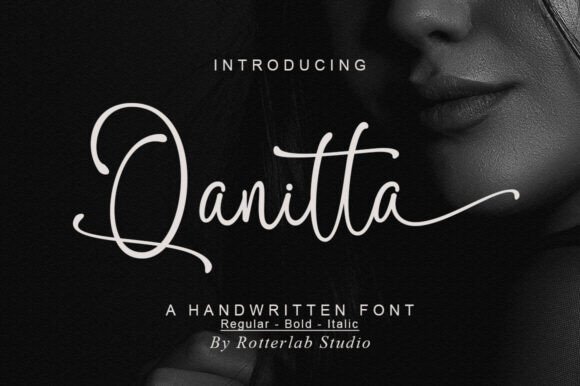
Qanitta Font: Elevate Your Designs with Elegance and Sophistication
When it comes to creating visually stunning designs, the right font can make all the difference. Introducing Qanitta, an elegant script font that embodies the perfect blend of classic sophistication and modern flair. Inspired by timeless calligraphy, Qanitta is designed to bring a touch of refinement and poise to your projects, making it an ideal choice for designers seeking to elevate their work.
What Makes Qanitta Stand Out?
Qanitta boasts a range of features that set it apart from other script fonts. Here are a few key characteristics that make Qanitta a standout:
• Elegant and Contemporary: Qanitta strikes the perfect balance between classic elegance and modern sophistication, making it suitable for a wide range of design applications.
• Balanced and Varied: The font’s carefully crafted strokes are neither too thin nor too thick, ensuring a harmonious and visually appealing appearance.
• Impeccable Form: Qanitta’s design is rooted in traditional calligraphy, yet it has been refined to meet the demands of modern design.
Perfect for a Variety of Design Projects
Qanitta’s versatility makes it an excellent choice for various design applications, including:
• Logo Design: Create stunning logos that exude elegance and sophistication.
• Wedding and Event Design: Add a touch of luxury to your wedding invitations, menus, and other event materials.
• Branding and Packaging: Elevate your brand’s visual identity with Qanitta’s refined and classic aesthetic.
• Advertising and Marketing: Make a lasting impression with Qanitta’s beautiful and sophisticated lettering.
Typographic Details: What to Expect from Qanitta
Here are some key typographic details to keep in mind when working with Qanitta:
• Font Style: Qanitta is a script font with a flowing, connected style.
• Character Set: The font includes a comprehensive character set, covering a wide range of languages and special characters.
• Weights and Variations: Qanitta is available in various weights, allowing you to achieve the perfect level of contrast and emphasis in your designs.
Tips for Using Qanitta Effectively
To get the most out of Qanitta, consider the following tips:
• Pair with Contrasting Fonts: Combine Qanitta with a clean, sans-serif font to create visual interest and contrast.
• Experiment with Size and Color: Play with different font sizes and colors to add hierarchy and emphasis to your designs.
• Pay Attention to Kerning: Take the time to adjust kerning and tracking to ensure optimal readability and aesthetics.
Draw Inspiration from Qanitta’s Timeless Beauty
Qanitta’s classic elegance is sure to inspire your designs. Here are a few ways to draw inspiration from this beautiful font:
• Explore Classic Calligraphy: Study the work of renowned calligraphers to gain a deeper understanding of traditional lettering techniques.
• Browse Elegant Designs: Collect inspiration from luxury brands, wedding designs, and high-end advertising campaigns.
• Experiment and Take Risks: Don’t be afraid to try new things and push the boundaries of what’s possible with Qanitta.
Conclusion: Elevate Your Designs with Qanitta
Qanitta is more than just a font – it’s a design solution that can elevate your work to new heights. With its elegant and contemporary aesthetic, impeccable form, and versatile design, Qanitta is the perfect choice for designers seeking to create stunning, sophisticated designs. Whether you’re working on a logo, branding project, or advertising campaign, Qanitta is sure to make a lasting impression.